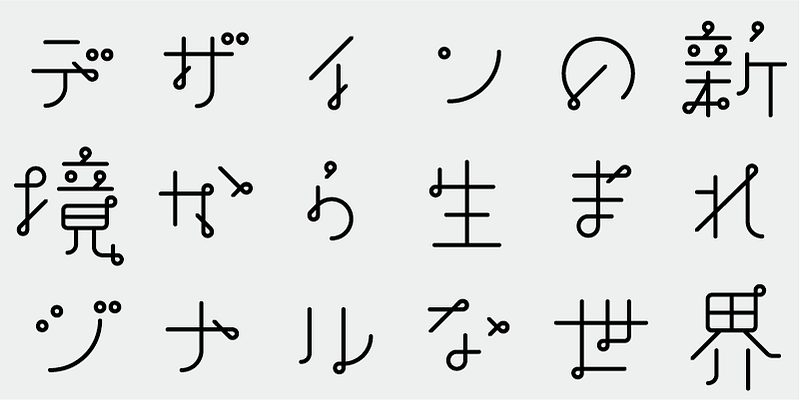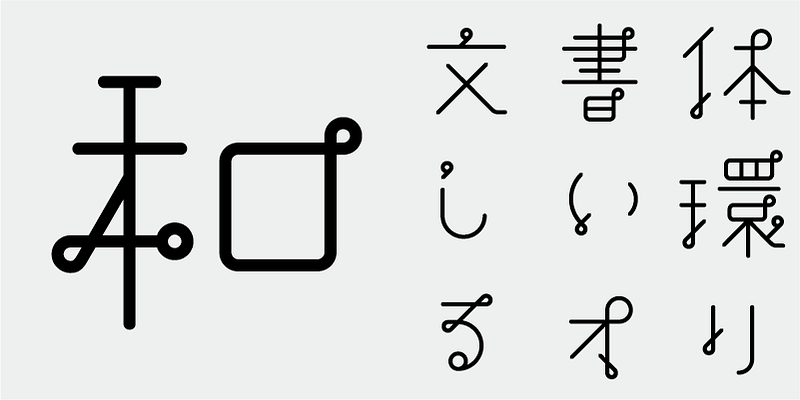
When I was a child, I enjoyed playing a game named “Tsuru-san wa marumaru mushi”, in which the players must correctly connect and arrange characters to complete a picture of an old man. That game inspired this typeface.
This is a display typeface that is useful for movie or TV titles, title pages, packages, and catchphrases for advertisements.